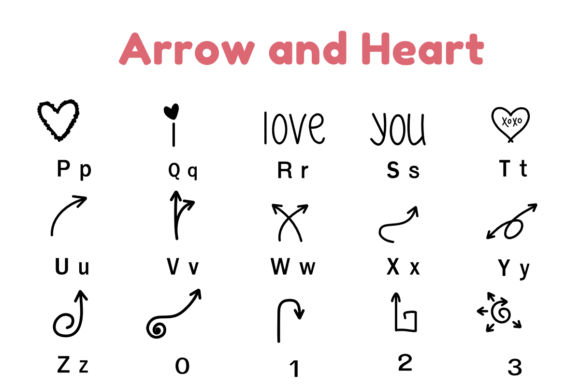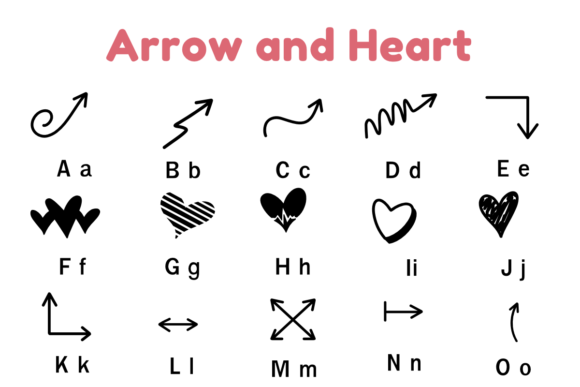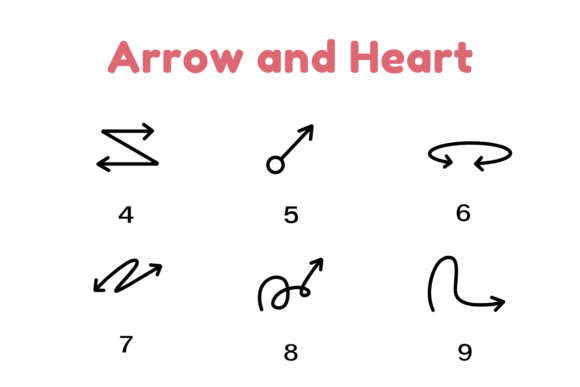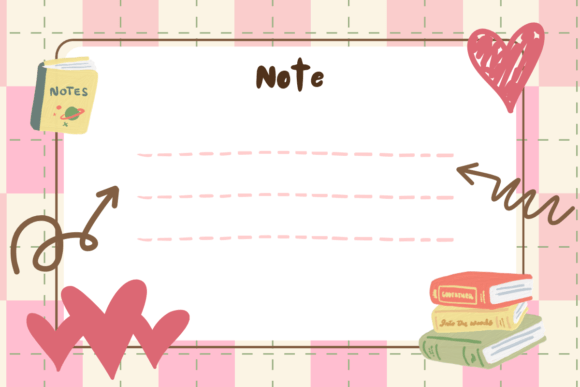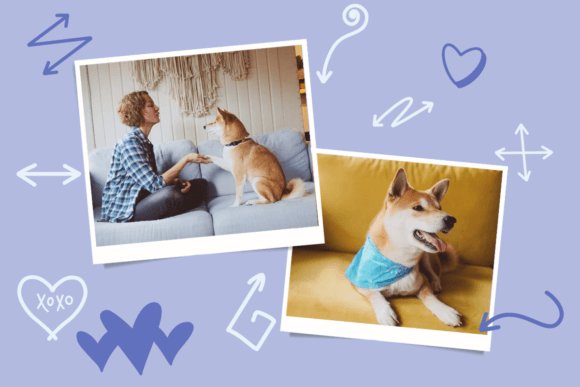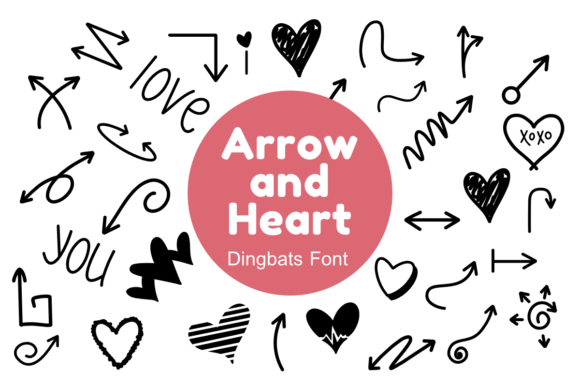
The Arrow and Heart Font: A Romantic Dingbat Delight
Have you ever been in the middle of a design project, and suddenly, you just can’t seem to find the right font? I recall a particularly frustrating moment when I was working on a wedding invitation design. My client wanted something romantic, whimsical, and utterly unique. That’s when I stumbled upon the Arrow and Heart font, a beautiful dingbat font that instantly captured the essence of love and affection.
• ❤️ Romantic and whimsical design, perfect for wedding invitations, DIY crafts, and decorations
• ✅ Easy to use and navigate, even for beginners
• 🎨 Highly versatile, suitable for various creative projects, from logos to party decorations
• 💕 Beautifully crafted glyphs and symbols that add a touch of elegance to any design
• ⚠️ Limited character set compared to other fonts, which might limit its use in certain projects
• ⚠️ Some users might find the font a bit too ornate or over-the-top for certain designs
The Story Behind Arrow and Heart
Arrow and Heart was designed by a talented typographer who wanted to capture the magic of love and romance in a font. Inspired by vintage wedding invitations and antique love letters, this font is a beautiful blend of classic elegance and modern whimsy.